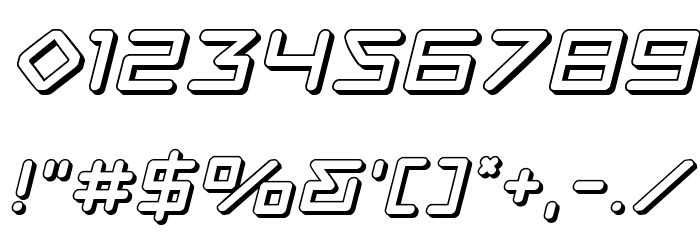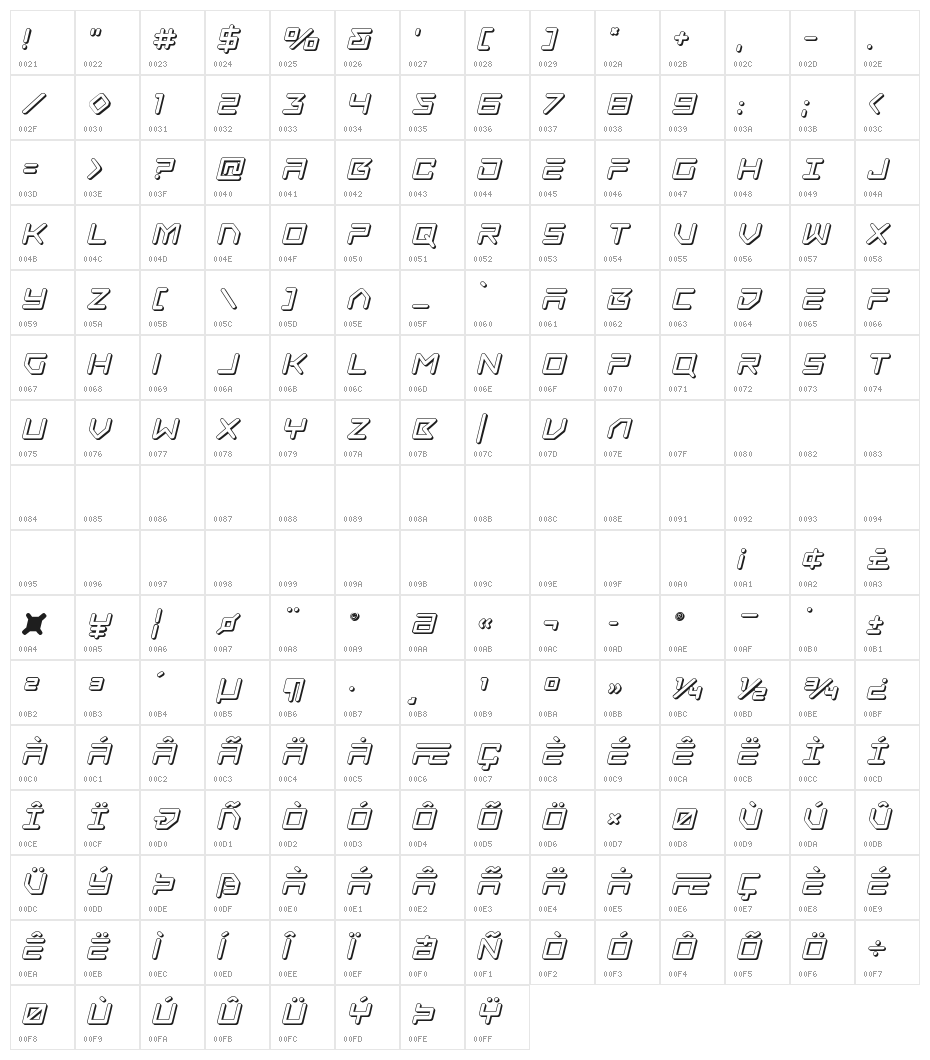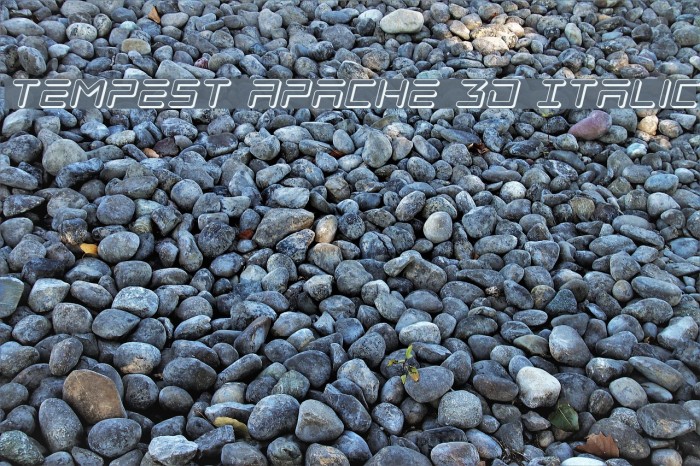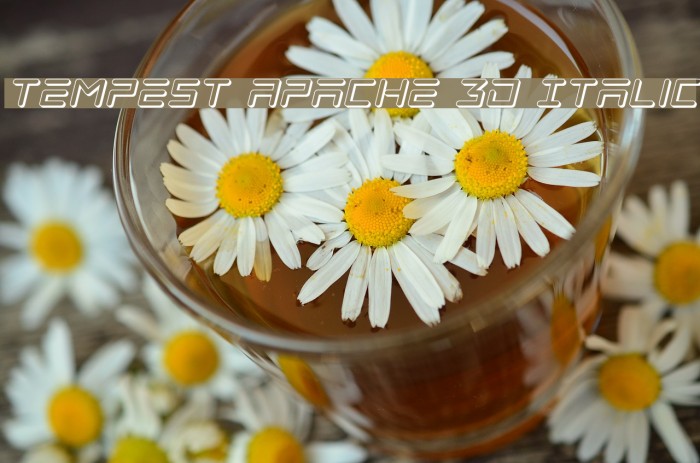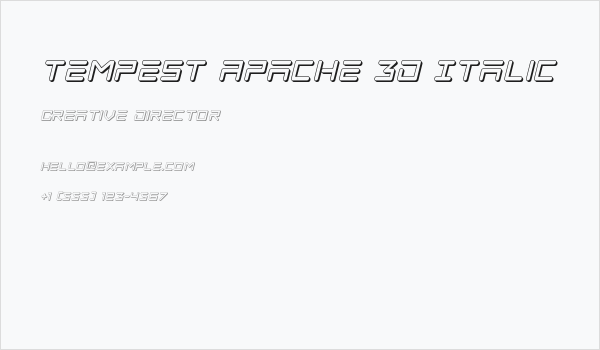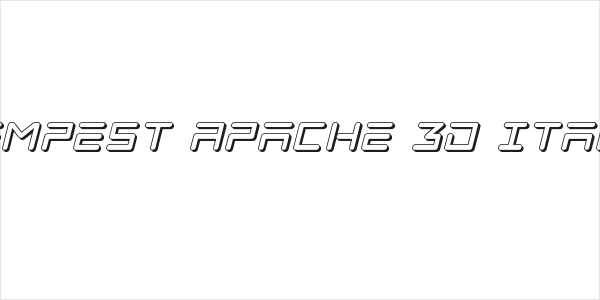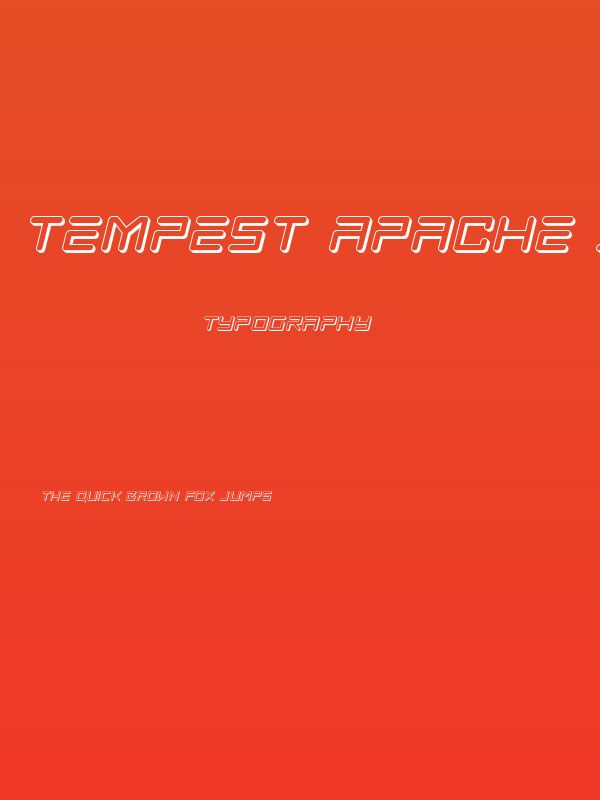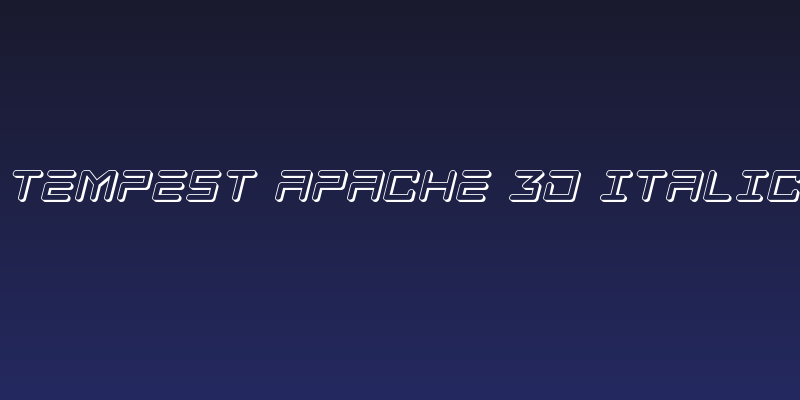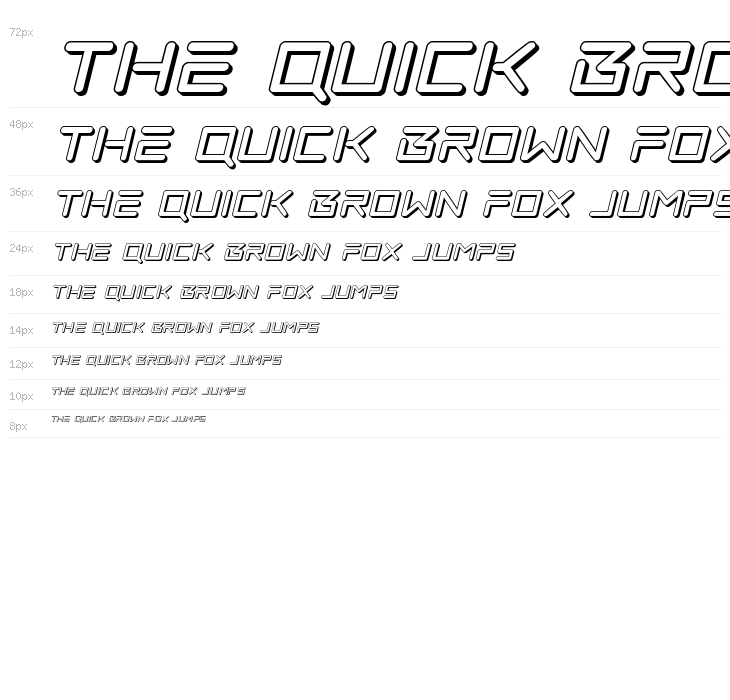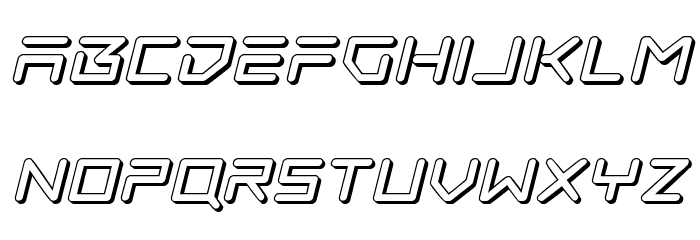
Tempest Apache 3D Italic Font
Tempest Apache 3D Italic Description
This font features a bold, three-dimensional design with a futuristic and dynamic appearance. The characters are outlined with a shadow effect, giving them a sense of depth and movement. The uppercase and lowercase letters maintain a consistent style, with angular lines and geometric shapes. The numerals and special characters are designed to match the overall aesthetic, making them suitable for a variety of creative applications. The italic slant adds a sense of speed and modernity, making it ideal for projects that require a strong visual impact.